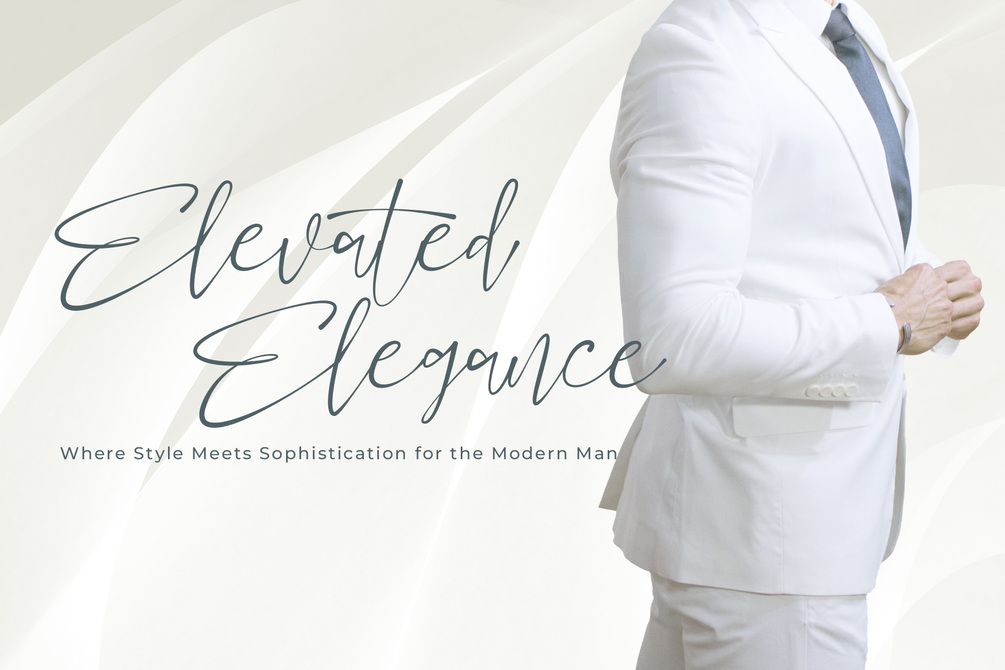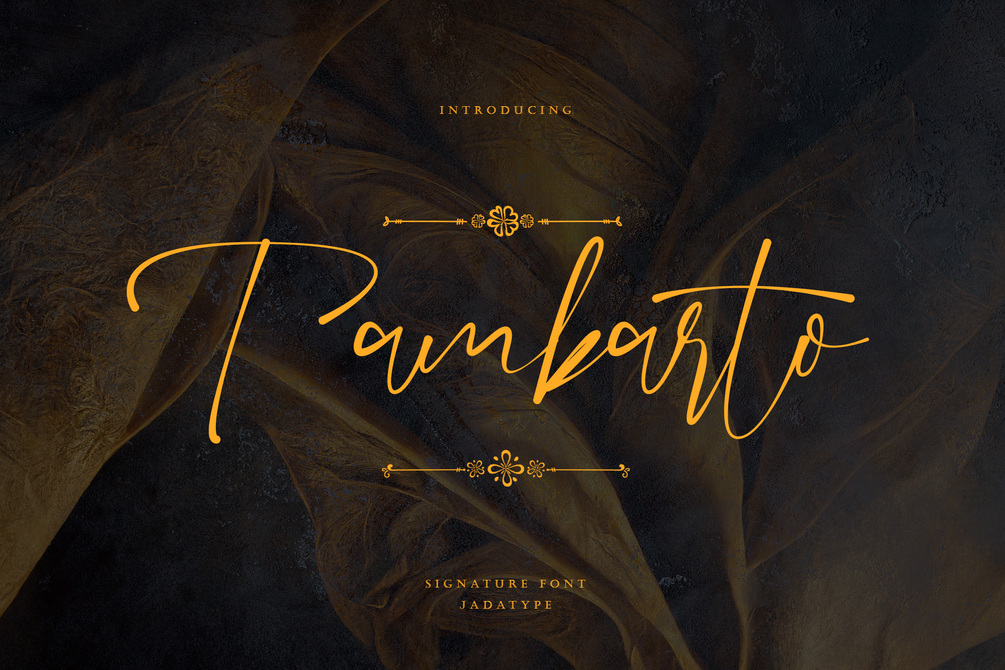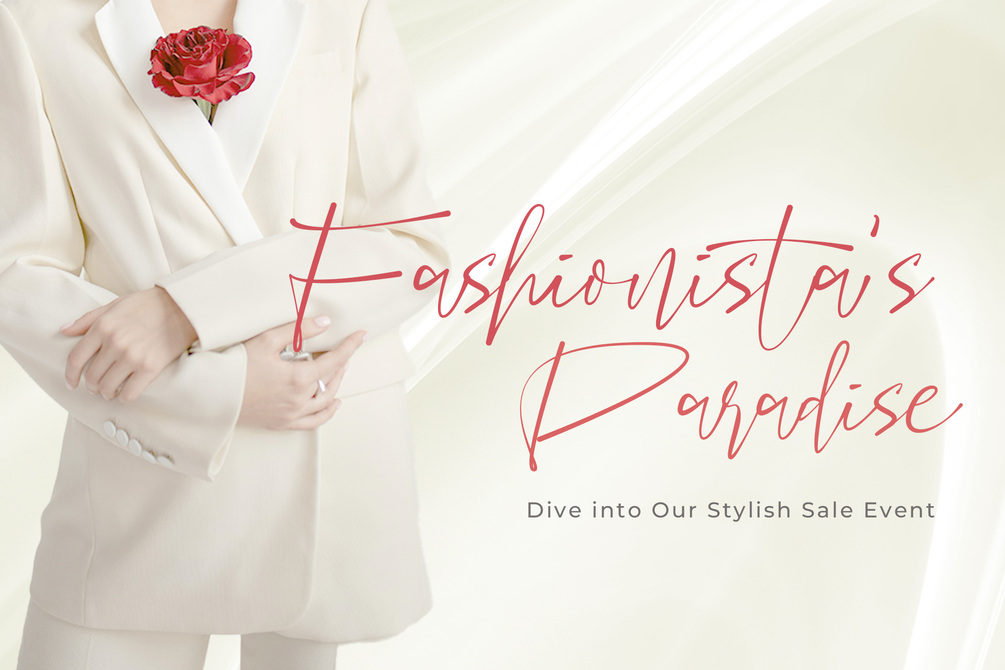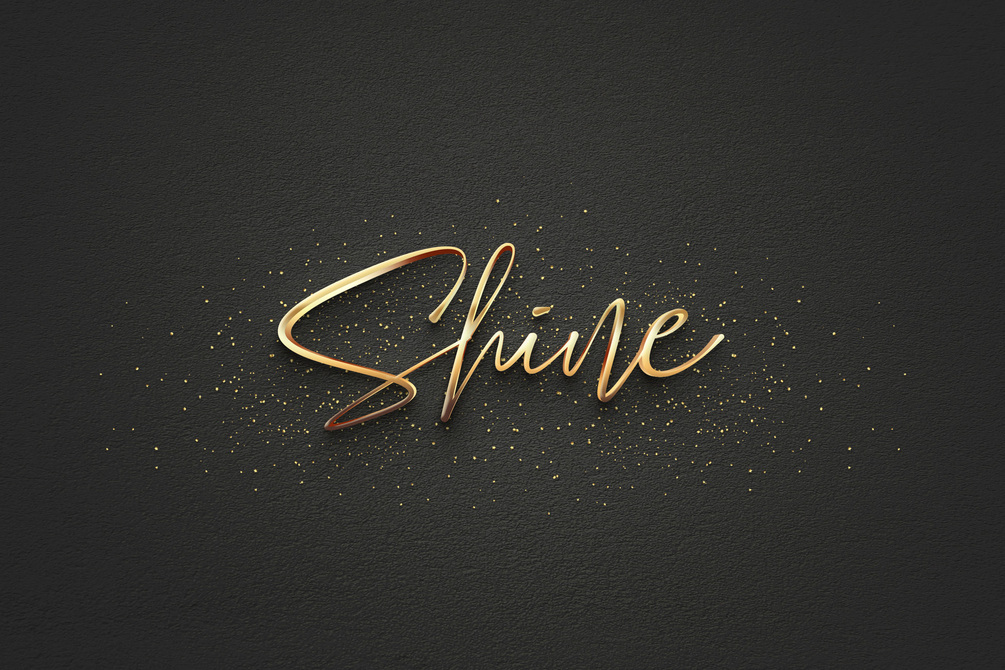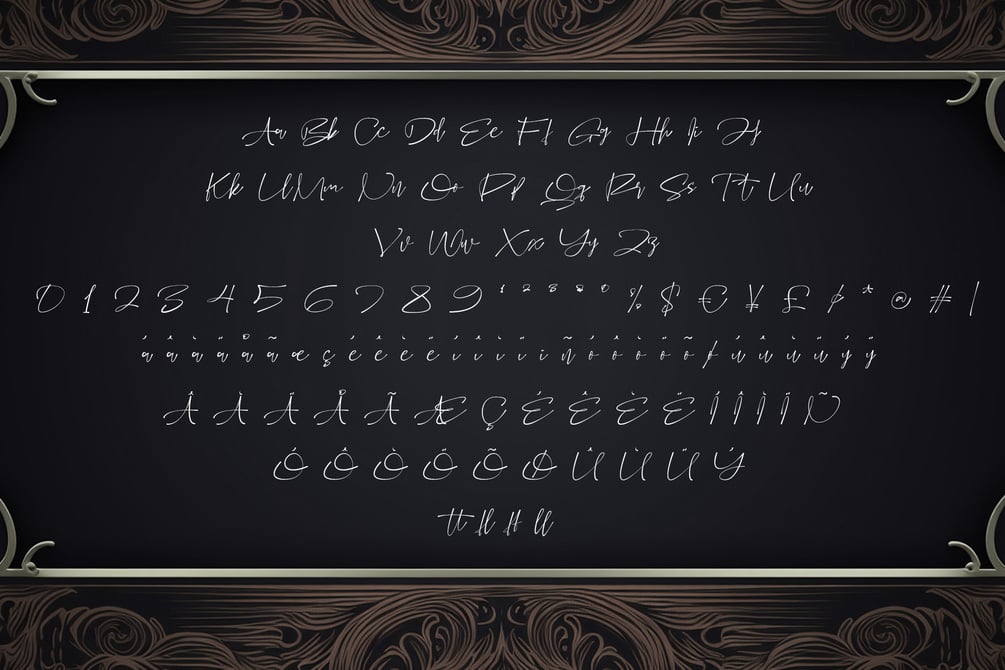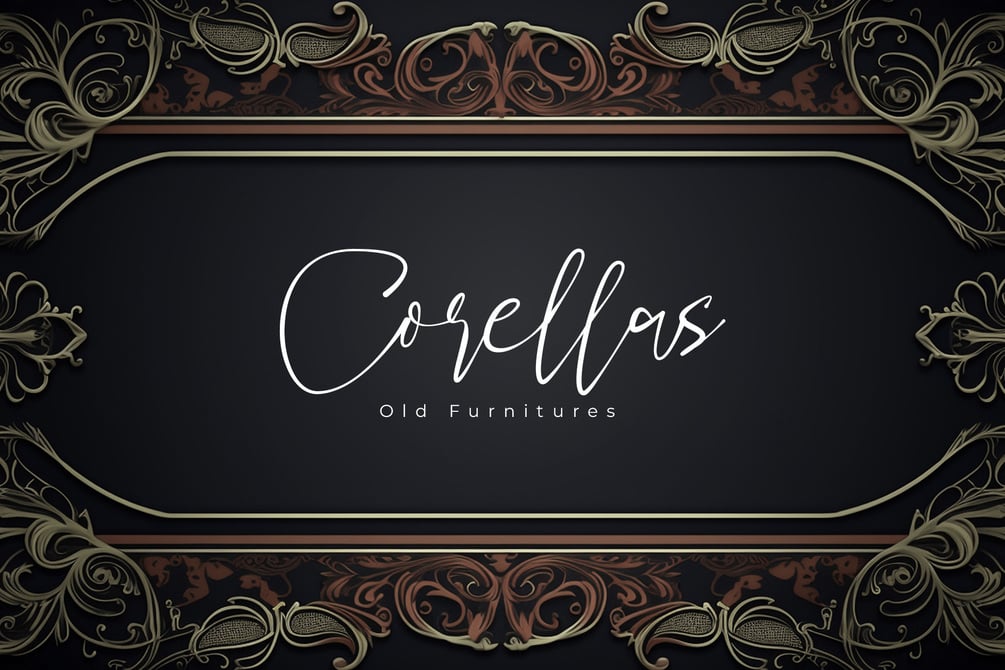
Tambarto Font
Tambarto is a script font that comes with a stylish signature line. suitable for product, Branding, social media, logotype and so on. contains standard English letters, numbers, punctuation, and several accents that support multilingualism.